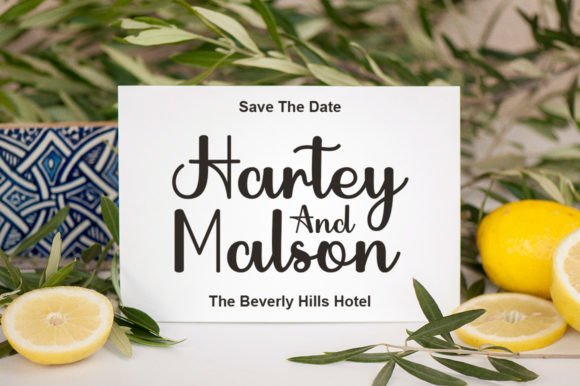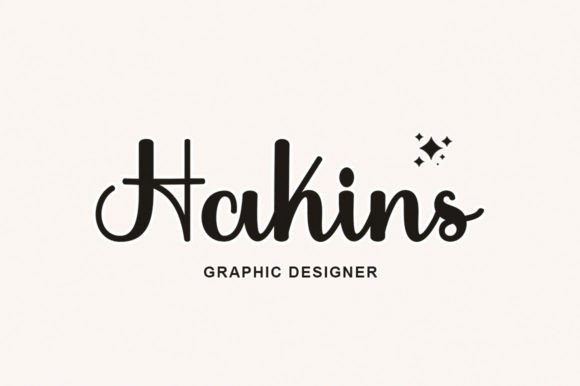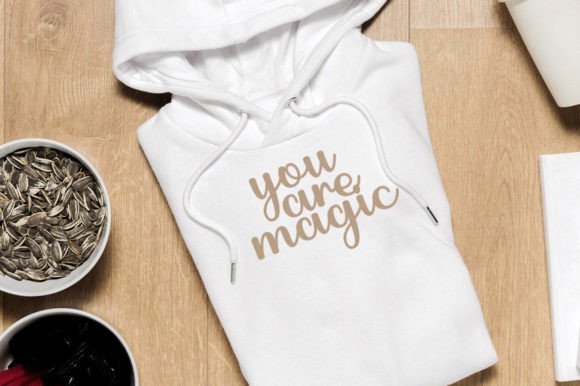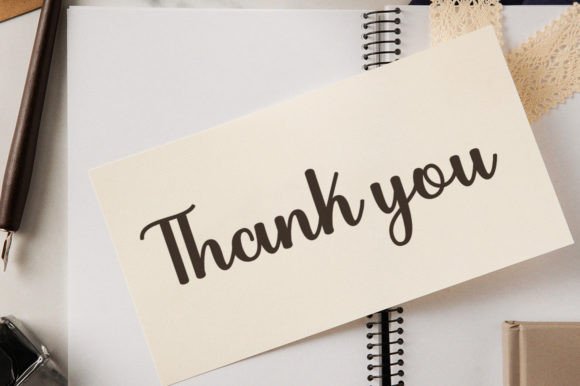
The Artis Font: A Lovely Handwritten Companion for Your Design Journey
I’ll never forget the time I was working on a branding project for a boutique bakery, and I just couldn’t find the perfect font to match their whimsical yet elegant vibe. The client wanted something that felt personal, yet sophisticated. That’s when I stumbled upon the Artis font, and it instantly became my go-to. In this article, I’ll share my love for this beautiful handwritten font, its features, and how you can make the most of it in your designs.
An Honest Review of Artis Font
What I Love About Artis Font
- ✨ Lovely and flowing script: Artis has a beautiful, cursive style that adds a touch of elegance to any design.
- ✅ Well-balanced characters: The font’s characters are carefully crafted to ensure perfect harmony, making it easy to read and visually appealing.
- 🌈 Versatile: Artis matches a wide range of designs, from feminine and playful to sophisticated and elegant.
- 🔍 PUA encoded: This means you can access all the glyphs and swashes with ease, giving you more creative freedom.
While Artis is an amazing font, there are a few things to keep in mind:
- 🤔 Some letters may not connect seamlessly: As with any handwritten font, some letters might not connect perfectly, which can affect the flow of the text.
- ⚠️ May not be suitable for very small text sizes: Artis is best used at larger text sizes to maintain its elegance and readability.
The Story Behind Artis Font
Artis was created with the intention of capturing the essence of handwritten elegance. The designer aimed to create a font that feels personal, yet sophisticated. Inspired by traditional calligraphy and modern typography, Artis is the result of meticulous craftsmanship and attention to detail.
| Author | IRF Lab Studio |
Q: Is Artis suitable for body text or long-form content?
A: While Artis is beautiful, it’s best suited for headings, titles, or short paragraphs. For long-form content, a more traditional font might be easier to read.